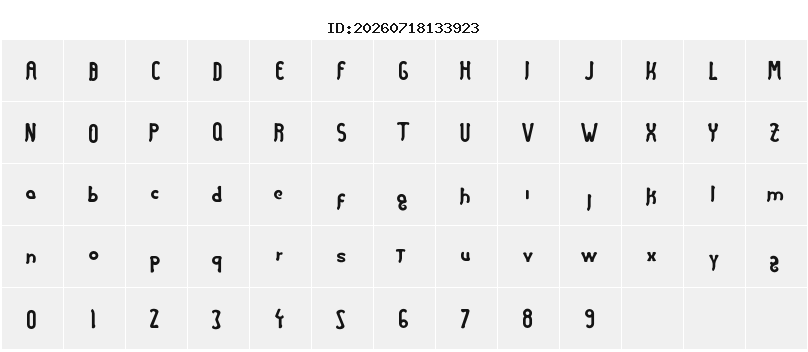
Caramelo Preview
• Font Name: Caramelo
• Designer: Alberto villanueva
About Caramelo.otf
Caramelo.otf is a modern, elegant sans-serif font designed for ultimate readability and visual harmony. Perfect for branding, headlines, web design, and print materials.